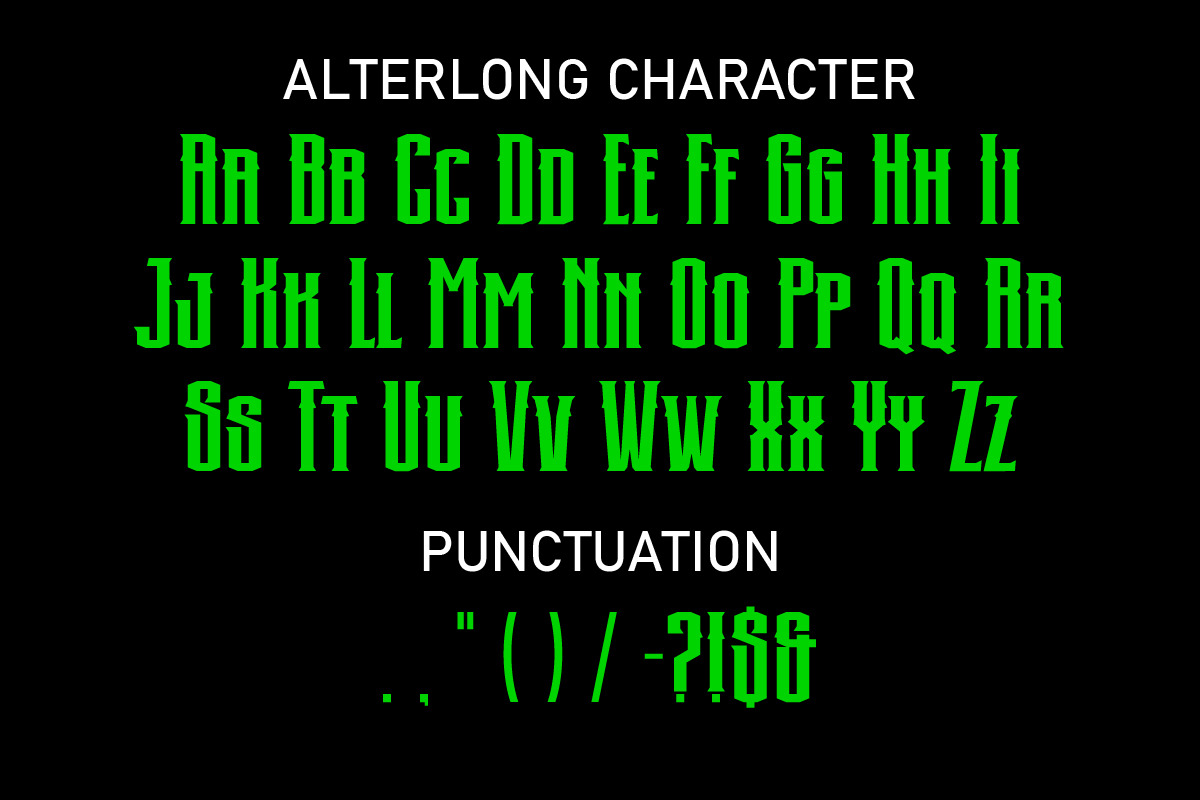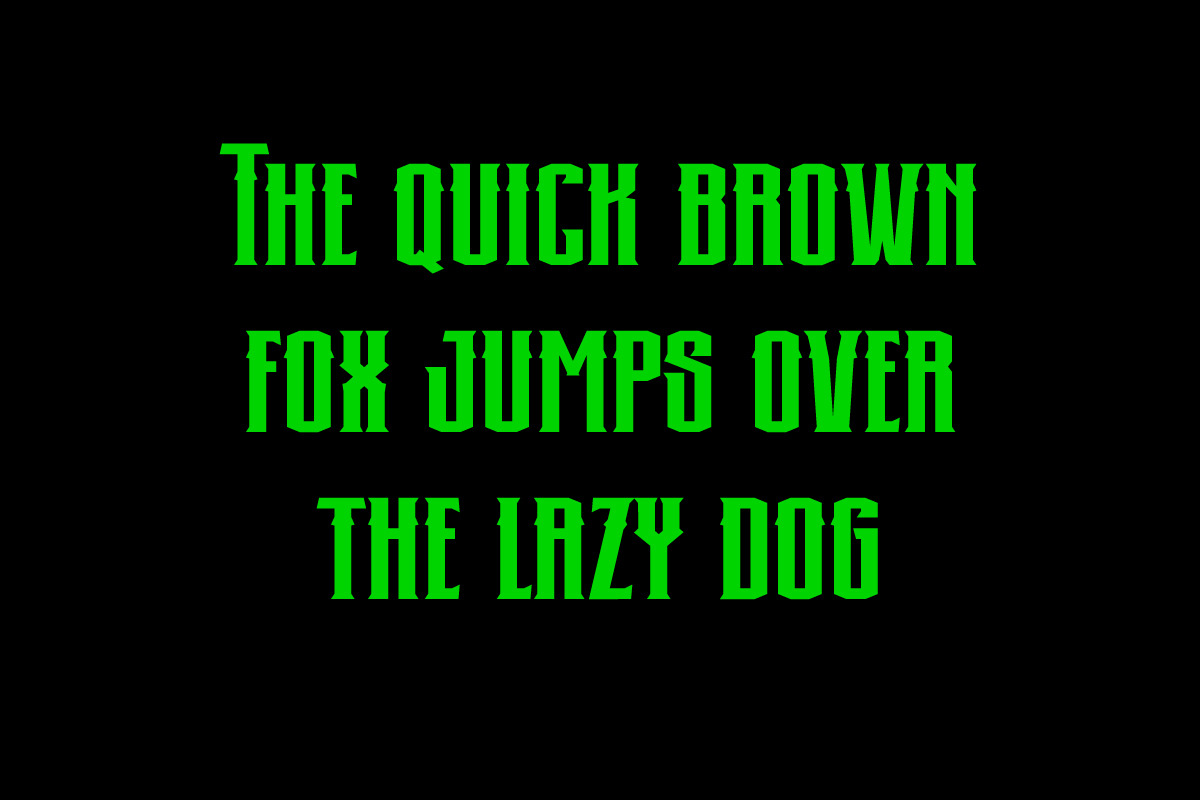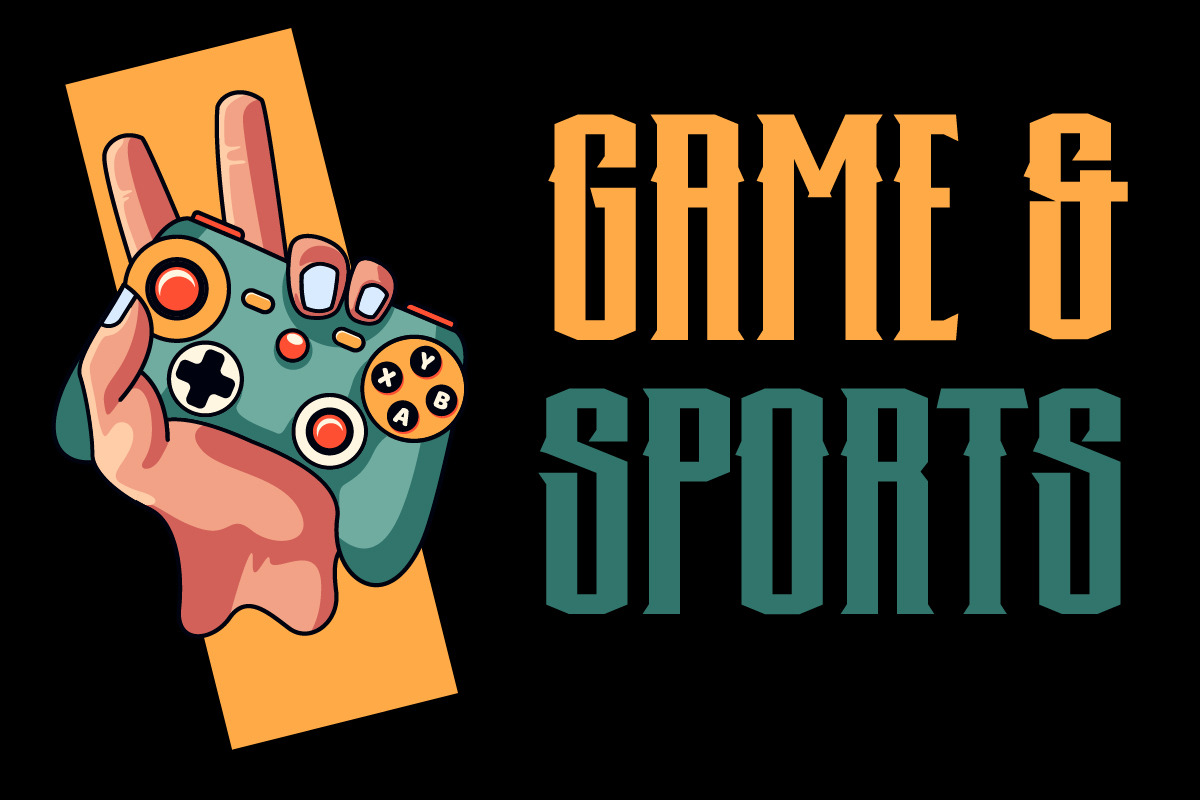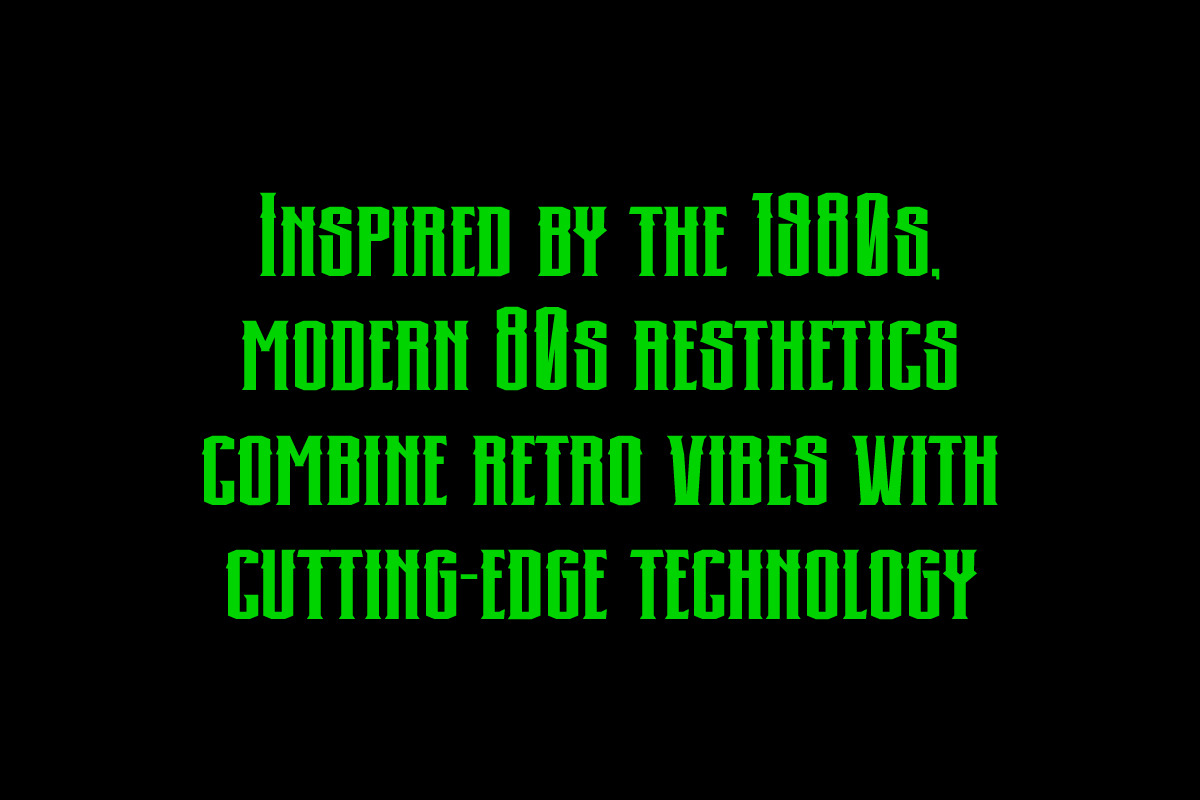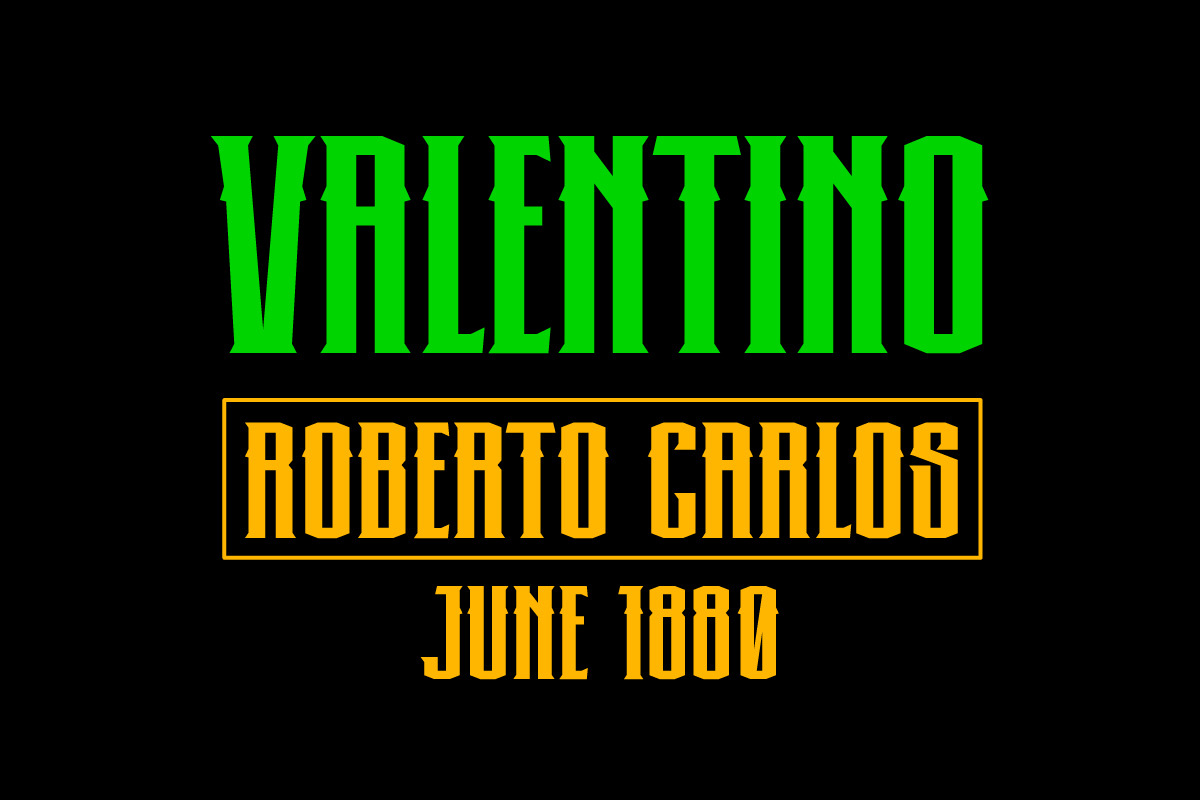
Alterlong Modern Black Letter
Alterlong Modern Black Letter, Neo Gothic Display Font is our new item suitable for your Posters.
Great for Logo, Poster, Sticker, Jerseys, Invitation Card, Brochure, etc.